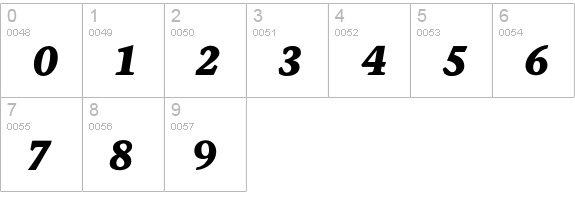
StoneInfBoldItalic Font Details
StoneInfBoldItalic is a versatile and modern font that exudes strength and sophistication. With its bold and italic styling, this font is perfect for adding emphasis and impact to your designs. Whether you're creating a logo, poster, or website, StoneInfBoldItalic is sure to make a statement. Best of all, StoneInfBoldItalic is available for free download at FontsMarket.com. This means you can easily access this high-quality font without any cost. Don't miss out on the opportunity to enhance your projects with the striking appeal of StoneInfBoldItalic. Download it today and elevate your designs to the next level.